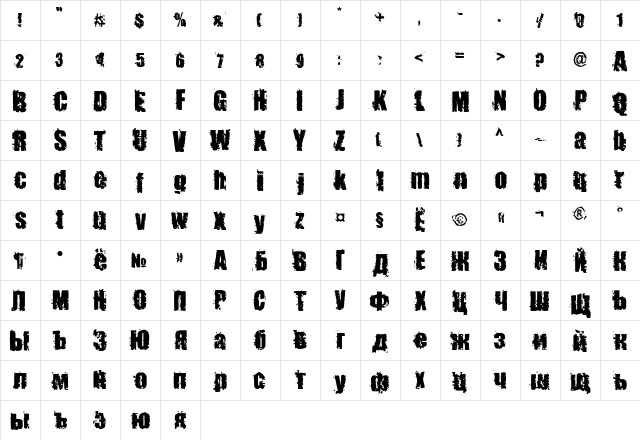
Beast Impacted Font Preview
Design Context for Beast Impacted Typeface
Beast Impacted has the bold swagger of sports branding: strong, assertive letterforms designed to dominate headlines and jerseys alike.
Built for sports team identities, athletic apparel, event posters, and high-energy promotional material.
Font Pairing: Use alongside a condensed or geometric sans for supporting copy — keep the pairing bold, functional, and free of ornament.
Pro Tip: Beast Impacted thrives on contrast — try it large, bold, and tight against a clean background for maximum visual impact.